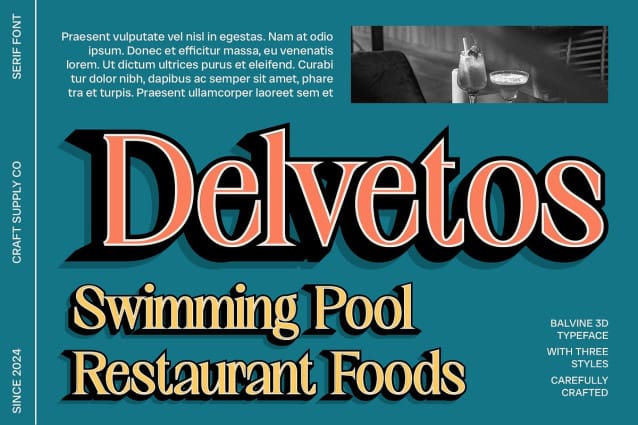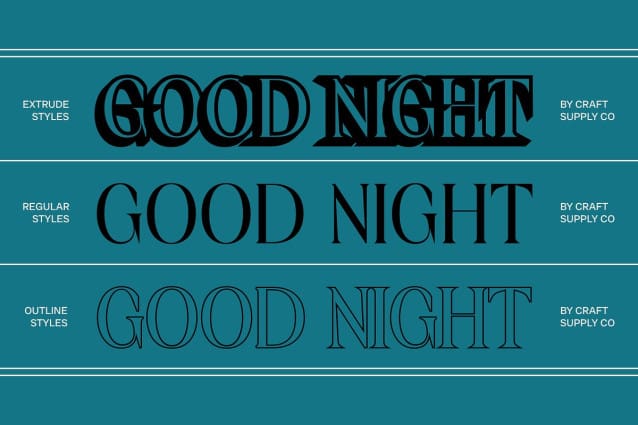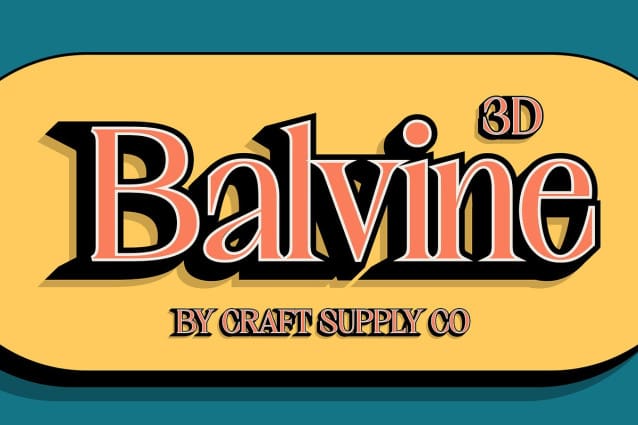
Balvine 3D Font
Balvine 3D Font is a modern serif font that elegantly bridges the gap between classic sophistication and contemporary design. Featuring refined serifs and clean, crisp lines, this font embodies timeless elegance, making it a perfect choice for high-end branding, luxurious editorial layouts, and sophisticated promotional materials.
Dimensional 3D Effect What sets Balvine 3D apart is its striking 3D effect, which introduces a layer of visual depth and intrigue. This dimensional quality not only enhances the font’s traditional design elements but also adds a modern twist, ensuring that it commands attention and stands out in any application.
Versatile for High-End and Sophisticated Projects Ideal for a range of upscale uses, Balvine 3D shines in luxury branding, high-profile editorial content, and elegant marketing materials. Its seamless integration of classic serif refinement with a contemporary 3D effect offers a unique blend of sophistication and modern flair, making it versatile for various high-end design projects.
Elevate Your Design with Refined Charm Enhance your design projects with the sophisticated allure of Balvine 3D. The combination of its elegant serif design and captivating 3D effect creates a visually engaging and polished look, making it the perfect choice for those seeking to make a stylish and memorable statement in their designs.